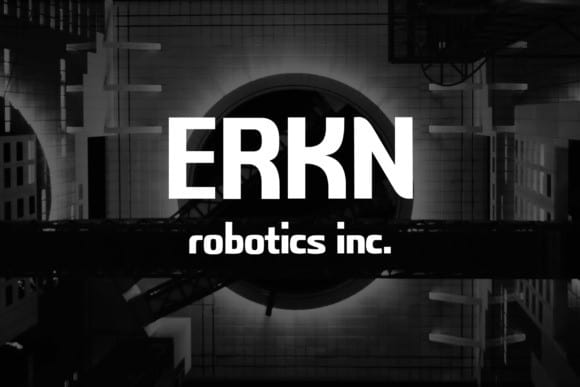
Erkn Font
Erkn Sans Serif Font is a sans serif display typeface inspired by the visual of futuristic and techno-based design from the latest and upcoming trends. It offers support for all characters of the European languages. Standard punctuation and diacritic glyphs are included. Compatible with tools such as Photoshop or Illustrator. Include OpenType features ligatures and kerning. Featuring a geometric style, great for classical and techno alike.